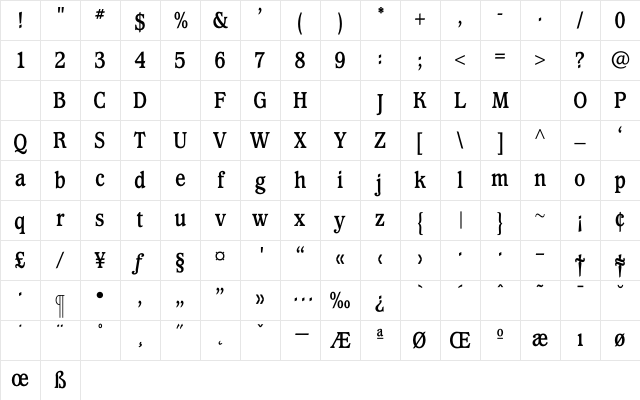
WaverlyBoldCondensed Regular
Design Context for WaverlyBoldCondensed
WaverlyBoldCondensed is a composed and adaptable typeface that performs quietly and consistently across a wide range of design contexts. Its bold stroke weight gives it real presence on the page. Its narrow stance lets it pack a punch even in space-constrained designs.